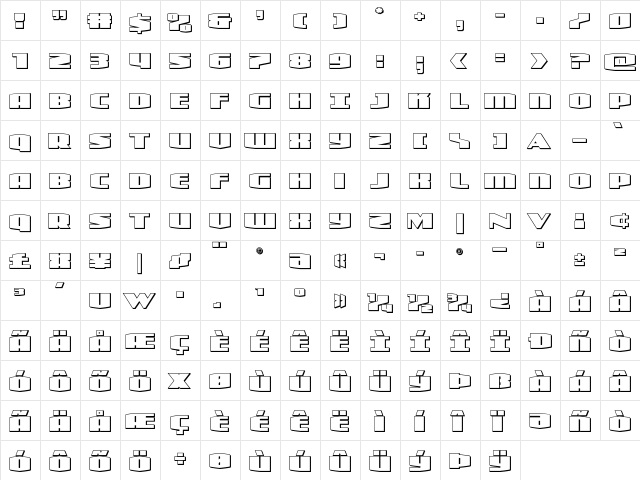
Alpha Century 3D Regular
Design Context for Alpha Century 3D Typeface
Alpha Century 3D is a composed and adaptable typeface that performs quietly and consistently across a wide range of design contexts.